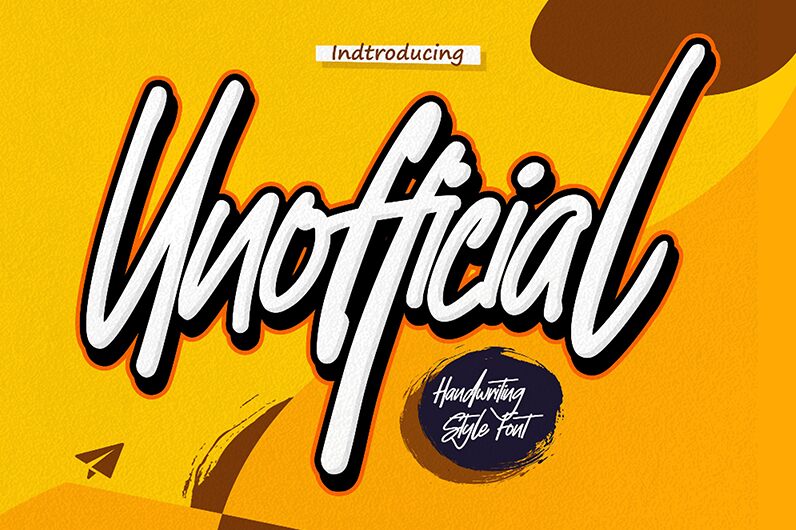
Unofficial font is a beautiful handwritten typeface designed by Gassstype. With its semi-light weight and extra-condensed width, it's perfect for projects that require a subtle touch of personality and elegance. Whether you're designing invitations, greeting cards, or logos for your business, Unofficial's unique style will make your project stand out from the crowd. Its sleek and sophisticated design is perfect for modern branding projects, while its playful curves make it versatile enough for creative designs like children's book covers or food packaging. Give Unofficial font a try and bring your designs to life!
Unofficial